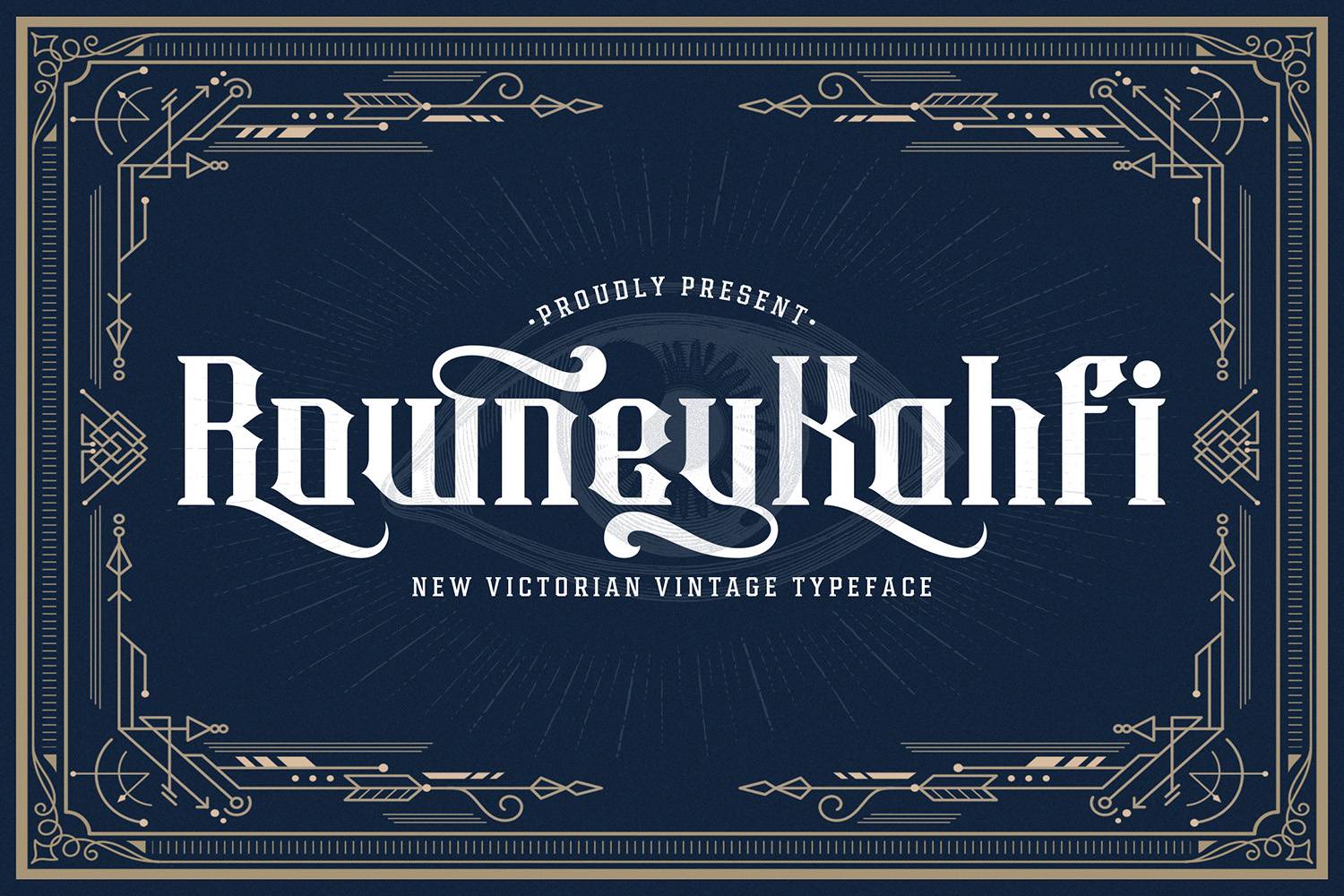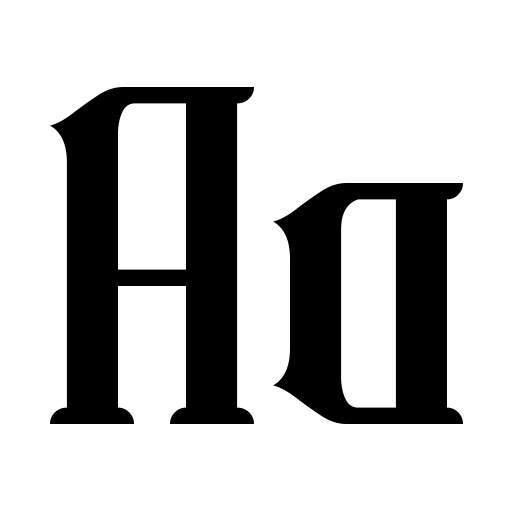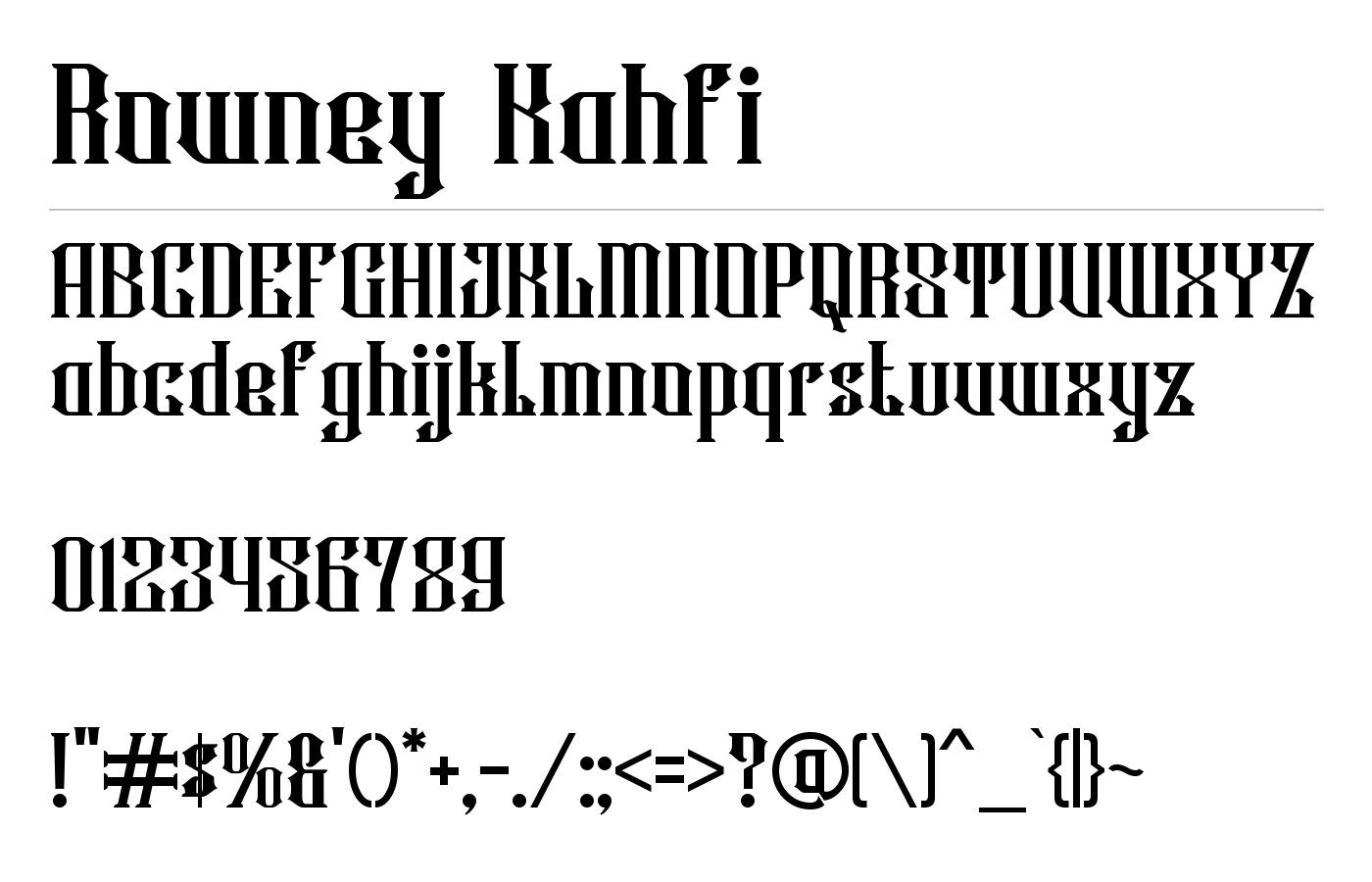
Rowney Kahfi is a bold serif typeface with a striking medieval or Gothic-inspired style, featuring tall, narrow letterforms and sharp, angular strokes. This font has a strong contrast between thick and thin lines, bracketed serifs with sharp edges, and a deliberate vintage yet formal personality. Ideal for display uses like logos, headlines, and posters, it brings a dramatic, authoritative mood that suits brands aiming for a historic or classic aesthetic.
Rowney Kahfi Font
About Rowney Kahfi Font